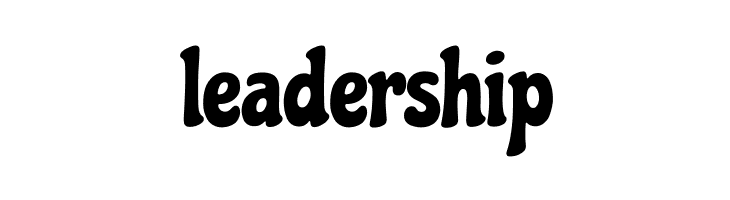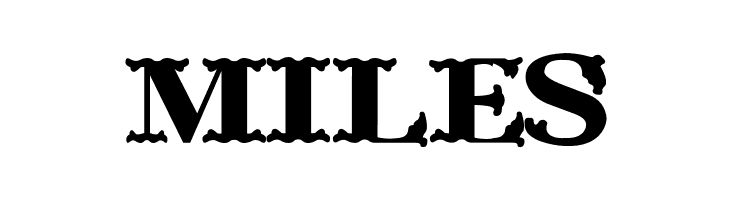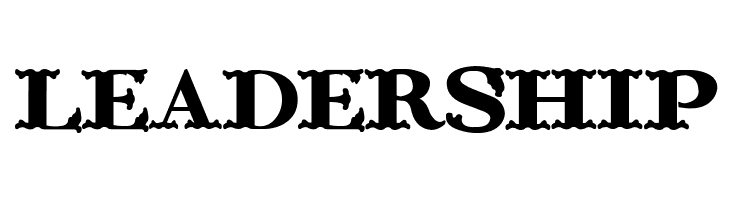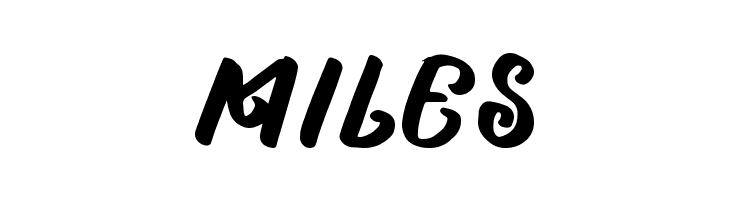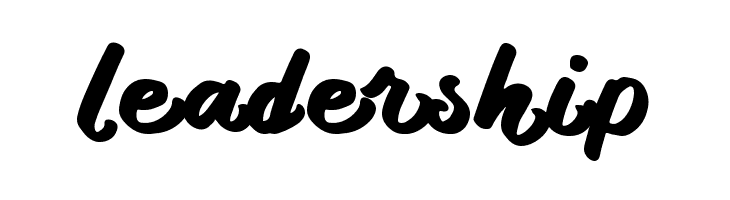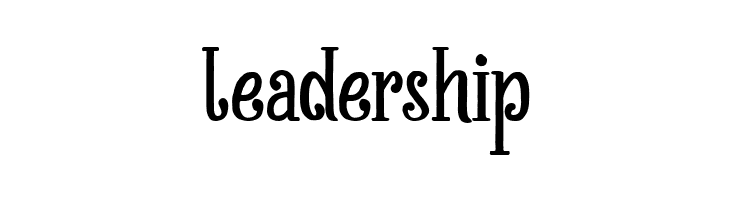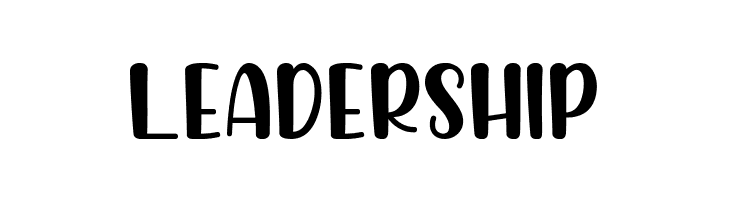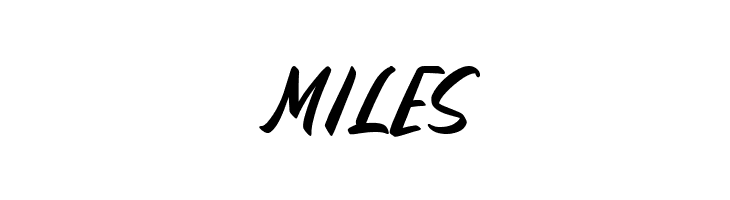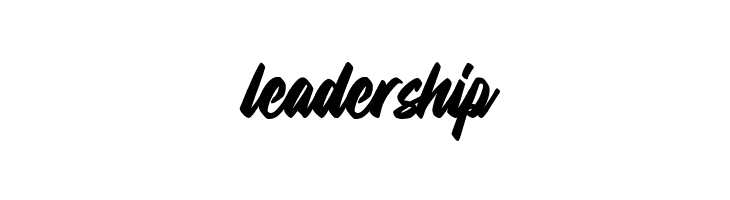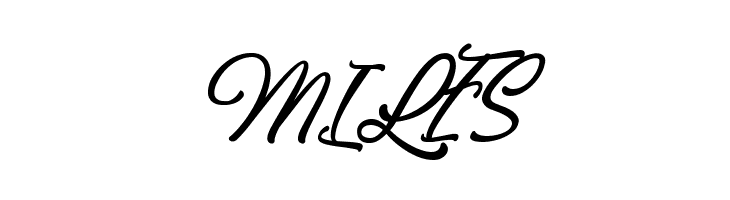
A lively, cursive handwritten font with smooth, flowing strokes.
A playful, hand-drawn font with bold outlines and a cartoonish style.
A bold, playful font with a 3D effect and comic book style.
A playful, curly, hand-drawn font with bold, rounded characters.
A playful, hand-drawn font with a whimsical and casual style.
A bold, cursive script font with dynamic strokes and elegant flair.
A bold, playful handwritten font with a modern, friendly style.
A bold, playful script font with flowing, cursive letters.
A casual, handwritten font with uneven, dynamic strokes.
A playful, hand-drawn font with a sketchy, informal style.
A bold, expressive script font with fluid, sweeping strokes and decorative flourishes.
A bold, decorative font with a distressed, vintage texture.
A playful, handwritten font with rounded edges and a casual, friendly style.
A playful and whimsical font with decorative curls and loops.
A casual, handwritten font with a playful and spontaneous style.
A bold, brush-like font with dynamic, hand-painted strokes.
A bold, playful font with bubble-like characters and thick outlines.
A playful and whimsical script font with smooth, rounded strokes.
A bold, playful font with a hand-drawn, artistic style.
A playful, bold font with rounded, inflated characters ideal for informal designs.
A bold, playful sans-serif with hand-drawn, cartoonish character.
A playful, bold font with rounded, bubbly characters and a whimsical flair.
A playful, casual handwritten font with smooth, rounded strokes.
A playful, handwritten script font with smooth, flowing lines.
A bold, distressed font with a playful and vintage feel.
A bold, distressed font with an eerie, hand-drawn style.
An elegant and flowing script font with interconnected cursive strokes.
A charming handwritten script with fluid, graceful strokes and decorative flair.